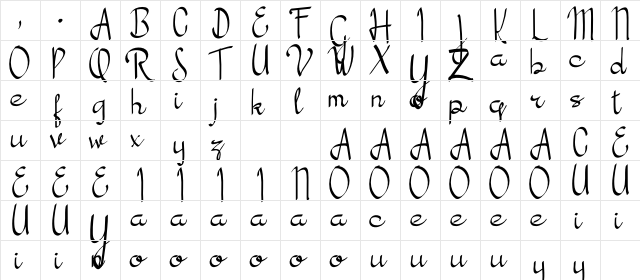
Valencia Script
| Style | Script |
| Designer | EKNOJI |
Design Context for Valencia Typeface
Valencia brings a calligraphic fluidity to the page — its connecting strokes and expressive curves give it an unmistakably human quality.